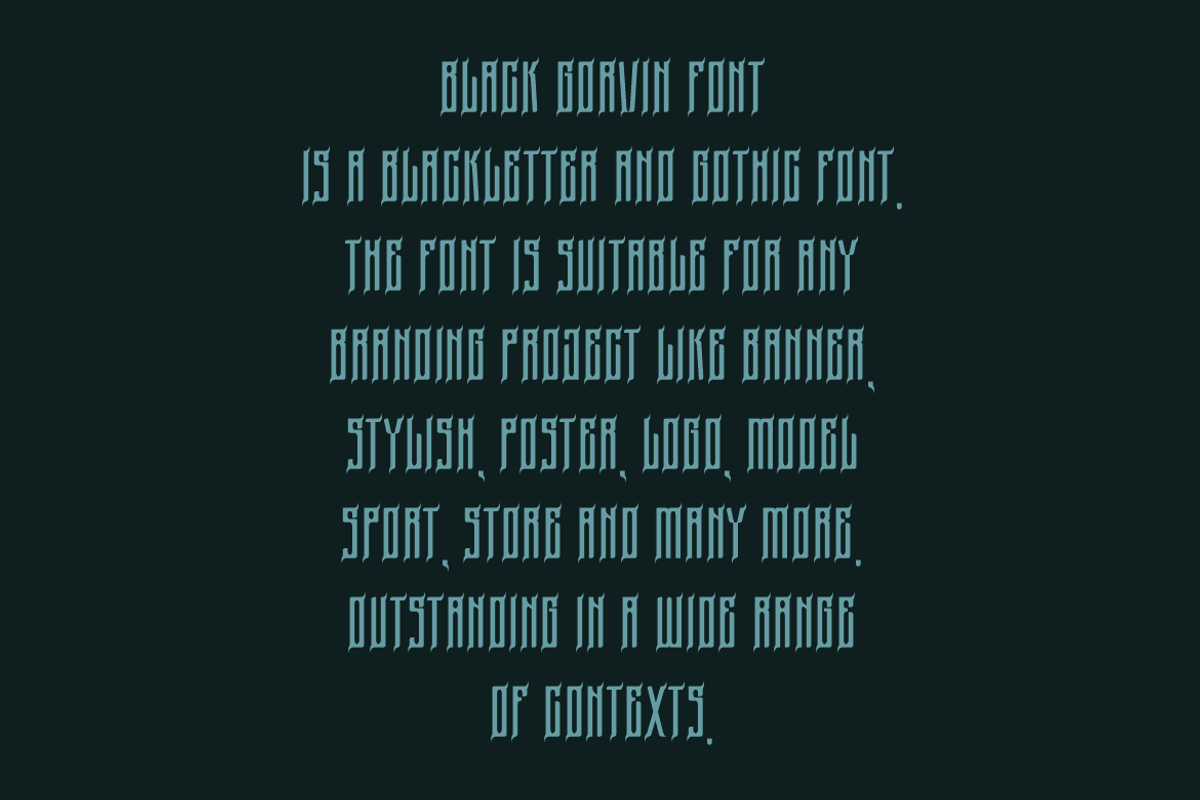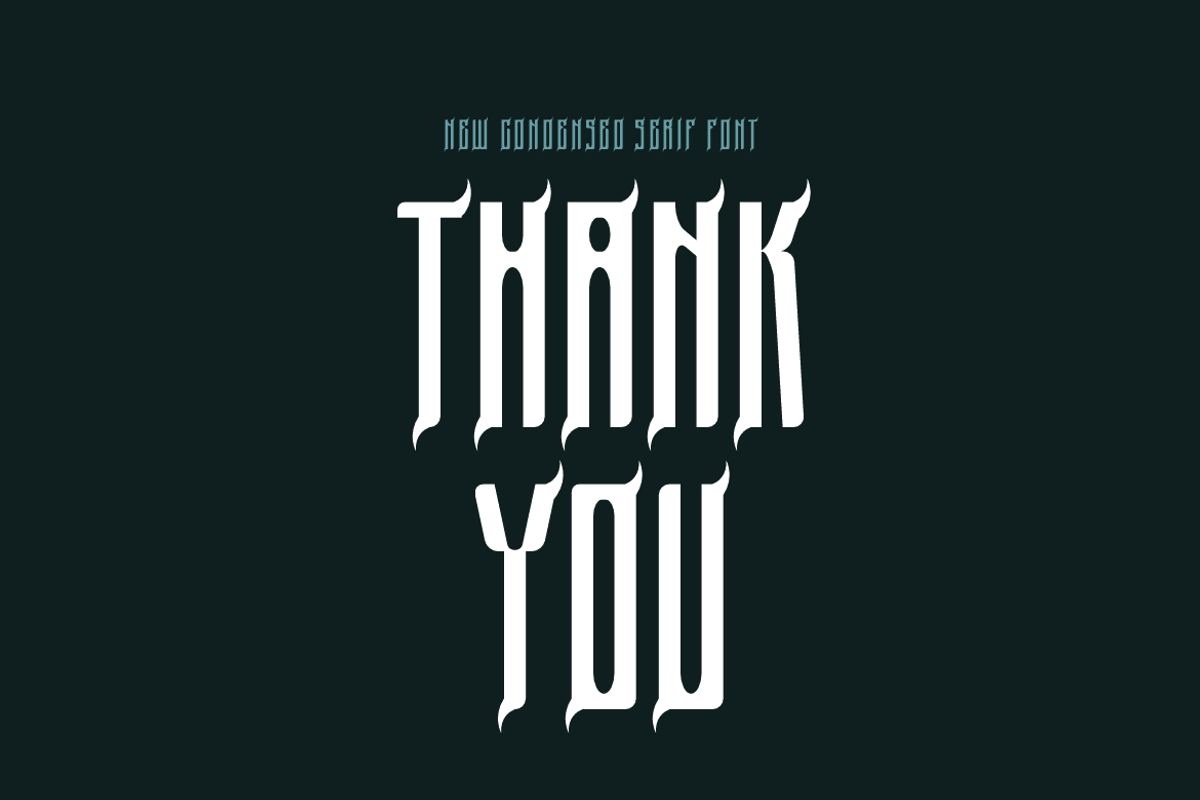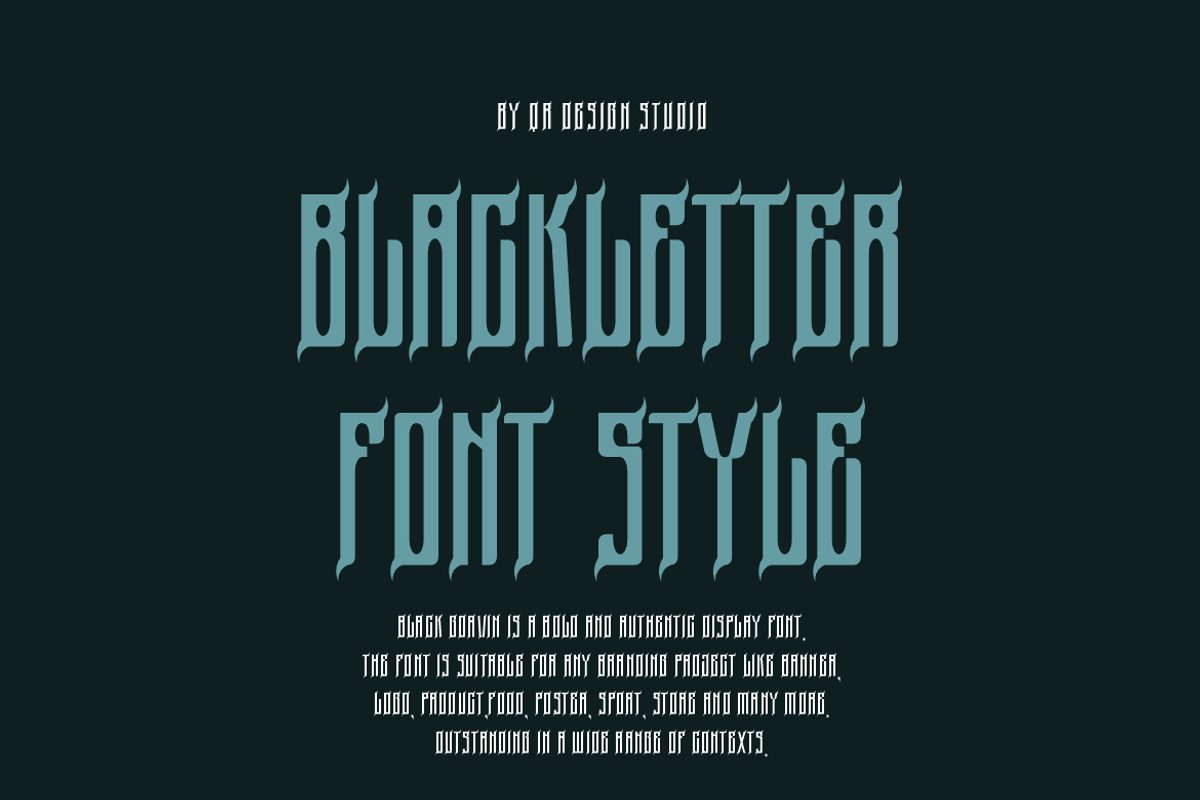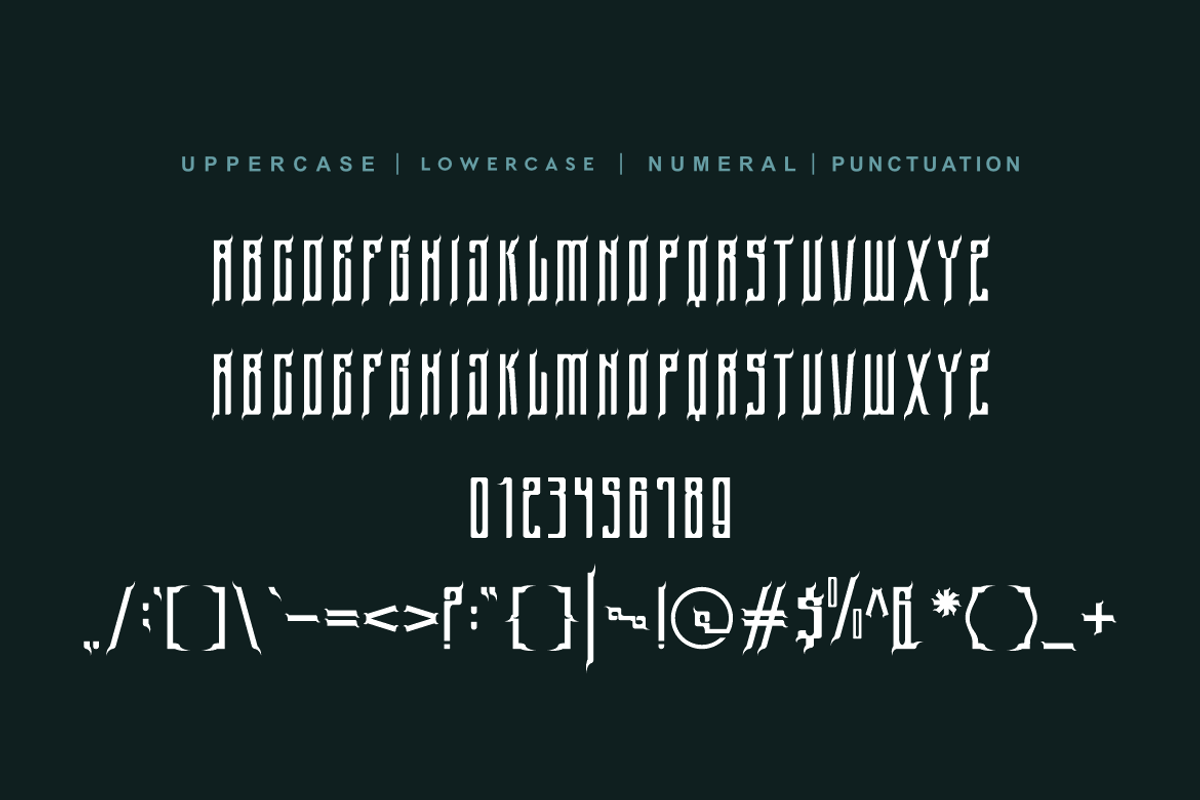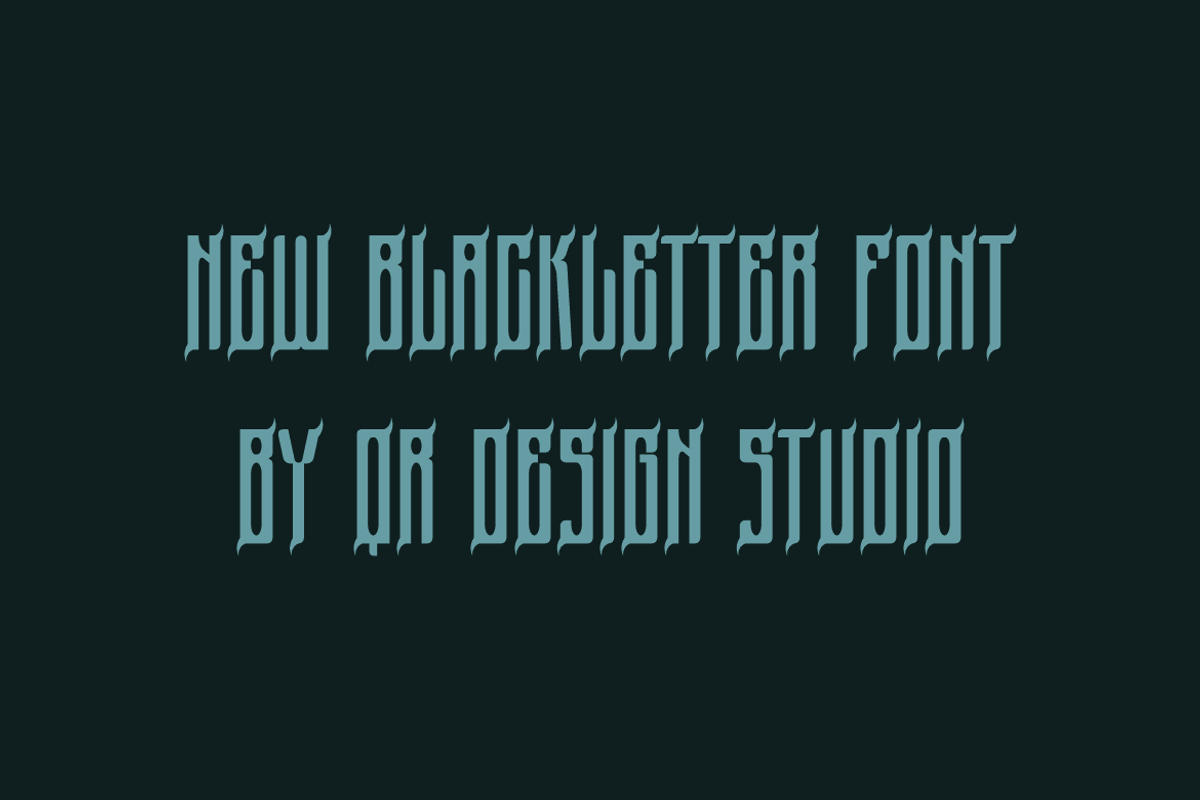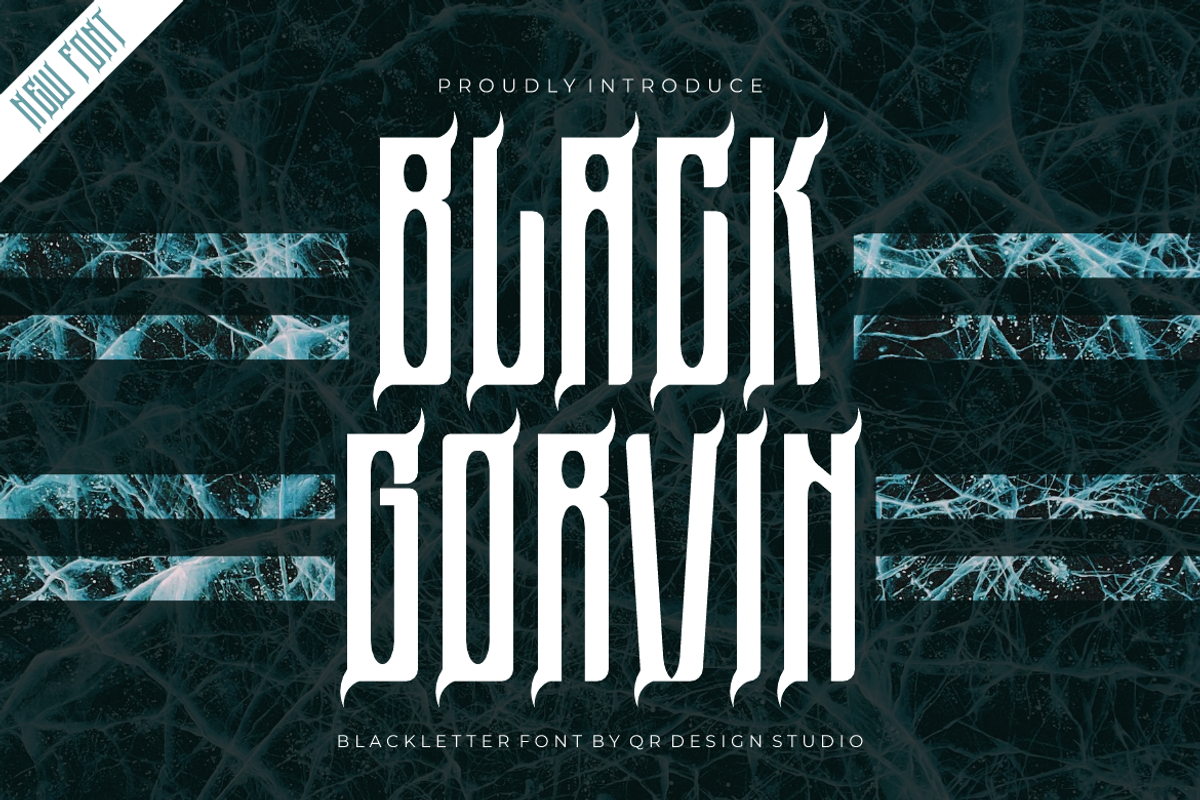
Black Gorvin
Black Gorvin Font is a bold and authentic display font. The font is suitable for any branding project like poster, logo, sport, and many more. Outstanding in a wide range of contexts.